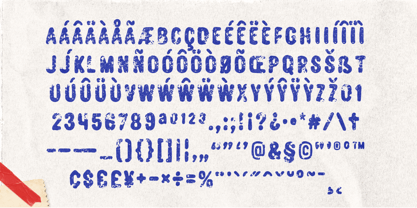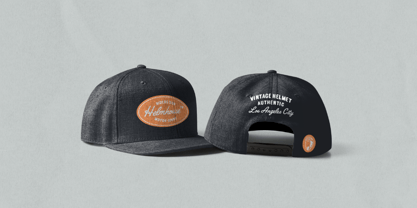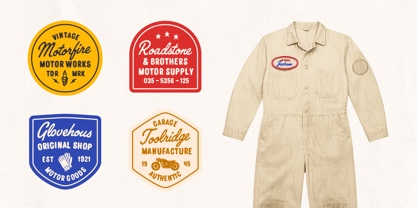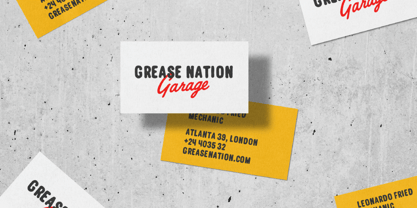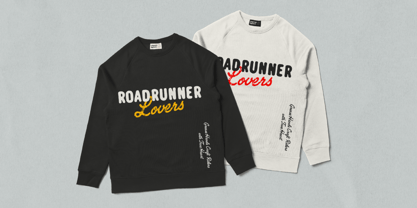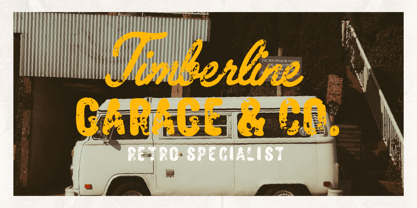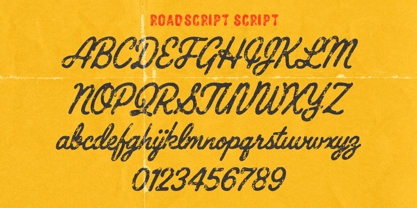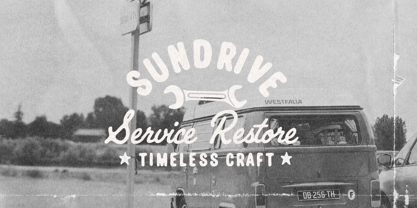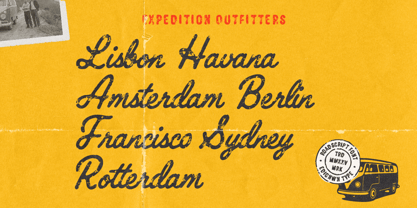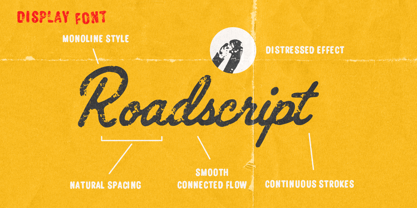
Roadscript
by Edignwn Type
The Roadscript Font Family was designed by Edi Gunawan and published by Edignwn Type. Roadscript contains 4 styles and family package options.
Roadscript is a retro automotive font duo built for visual branding designers who craft nostalgic, garage-inspired identities. With expressive hand-drawn curves and a warm vintage grit, this typeface brings the spirit of old workshop signage, mechanic patches, fuel badges, and classic moto culture into modern design projects. This font family includes two complementary typefaces—Roadscript (a connected script) and Roadscript Caps (a bold all-caps display)—each designed to pair seamlessly for logos, apparel, posters, patches, and retro automotive branding systems. Roadscript delivers an authentic, handcrafted feel with smooth script strokes, while Roadscript Caps adds a sturdy block presence perfect for badges, titles, and supporting text. Roadscript includes: Uppercase, lowercase, numeral, symbol, punctuation, ligature and alternate in Roadscript All-caps, numeral, symbol and punctuation in Roadscript Caps Multilingual support PUA encoded for easy access